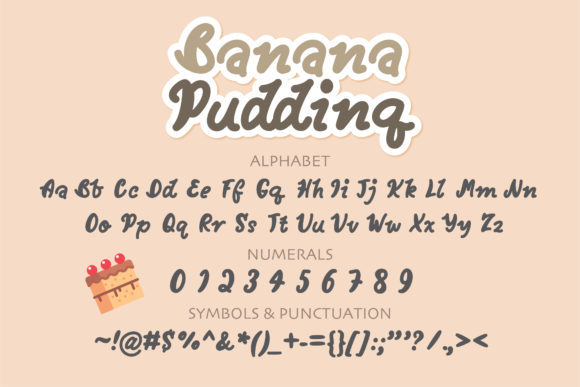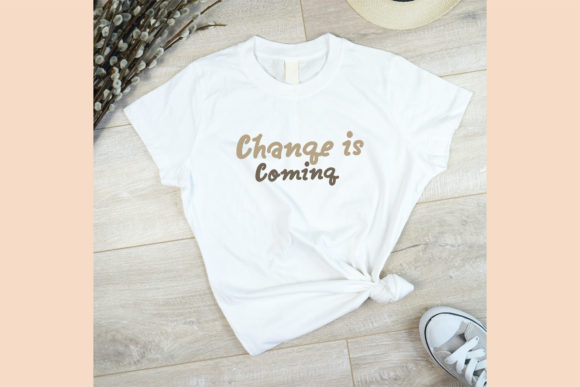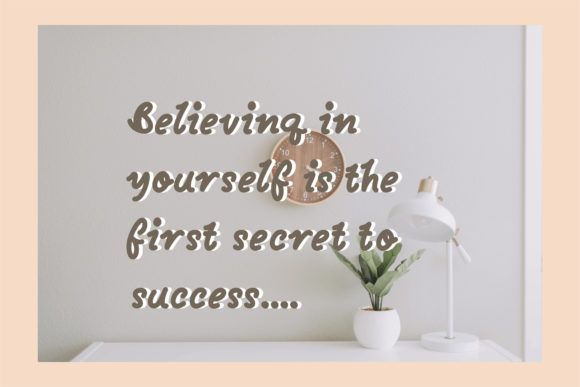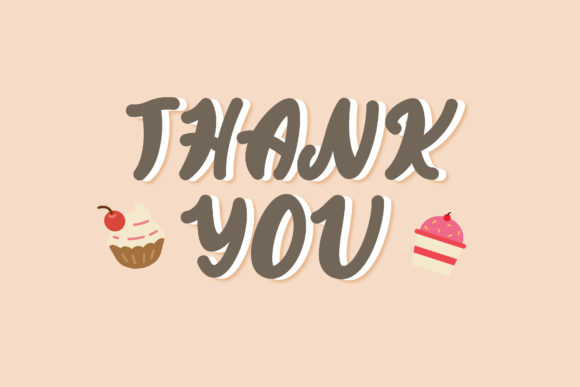
Introducing Banana Pudding Font: The Sweetest Addition to Your Design Collection
Are you on the hunt for a font that exudes warmth, friendliness, and a touch of whimsy? Look no further than the delightful Banana Pudding font. This sweet and charming handwritten font is sure to become your go-to choice for a wide range of design projects. In this article, we’ll dive into the world of Banana Pudding font, exploring its unique features, uses, and benefits for designers and crafters.
A Font that Feels like Home
Banana Pudding font is a beautiful, handwritten typeface that boasts a natural and unique style. Its sweet, friendly vibe makes it incredibly fitting for a vast array of designs, from wedding invitations and thank you cards to quotes, greeting cards, logos, business cards, and more. This font’s versatility is unmatched, allowing you to add a customized touch to any project that needs a personal and approachable feel.
What Makes Banana Pudding Font So Special?
So, what sets Banana Pudding font apart from other fonts in the market? Here are a few key features that make it a standout:
- Handwritten with love: Banana Pudding font is carefully crafted to resemble handwritten text, giving it a warm, organic feel that’s hard to resist.
- Unique and quirky: This font’s distinctive style ensures that your designs will stand out from the crowd, making it perfect for projects that require a bit of personality.
- Natural and effortless: Banana Pudding font has a relaxed, effortless vibe that makes it suitable for a wide range of design applications, from formal to informal.
Design Ideas with Banana Pudding Font
Now that we’ve explored the features of Banana Pudding font, let’s dive into some design ideas to get you started:
- Wedding invitations: Add a touch of romance and whimsy to your wedding invites with Banana Pudding font. Its sweet, friendly vibe sets the tone for a joyful celebration.
- Thank you cards: Express your gratitude with style using Banana Pudding font. Its warm, handwritten feel makes it perfect for thank you cards and other correspondence.
- Quotes and typography: Banana Pudding font is a great choice for showcasing inspirational quotes, lyrics, or poems. Its unique style adds a touch of personality to your typography projects.
- Greeting cards: Create one-of-a-kind greeting cards for special occasions like birthdays, holidays, or anniversaries with Banana Pudding font.
- Logos and branding: Use Banana Pudding font to create a custom logo or brand identity that exudes warmth, friendliness, and approachability.
Why Designers and Crafters Love Banana Pudding Font
Banana Pudding font has quickly become a favorite among designers and crafters, and for good reason. Here are a few benefits of using this delightful font:
- Easy to read: Despite its handwritten nature, Banana Pudding font is surprisingly easy to read, making it perfect for body text and other applications where legibility is key.
- Highly versatile: This font’s adaptability ensures that it can be used in a wide range of design projects, from digital to print.
- Time-saving: With Banana Pudding font, you can create stunning designs in no time. Its unique style and friendly vibe eliminate the need for extensive design work.
In conclusion, Banana Pudding font is a sweet and charming addition to any design collection. Its unique, handwritten style and friendly vibe make it perfect for a wide range of design projects, from wedding invitations and greeting cards to logos and branding. Whether you’re a designer, crafter, or DIY enthusiast, Banana Pudding font is sure to become your new favorite go-to typeface. So why wait? Give Banana Pudding font a try today and add a touch of whimsy and warmth to your designs!